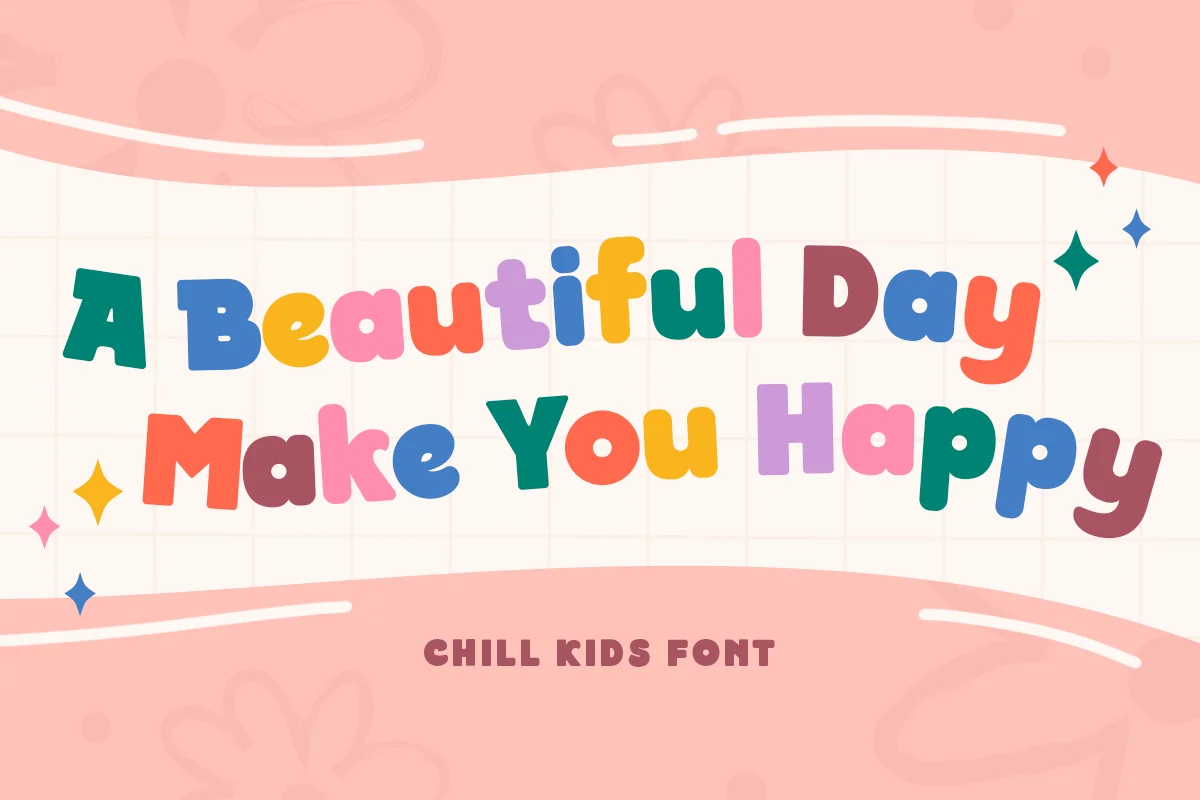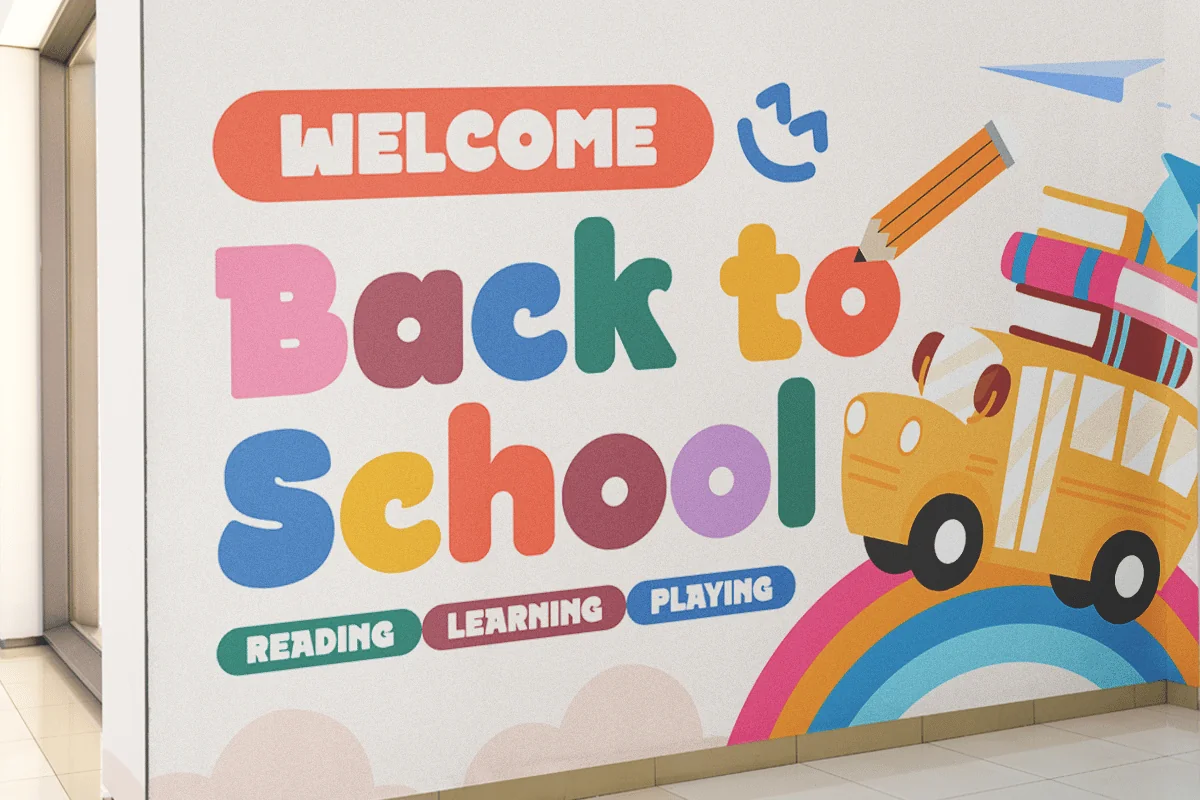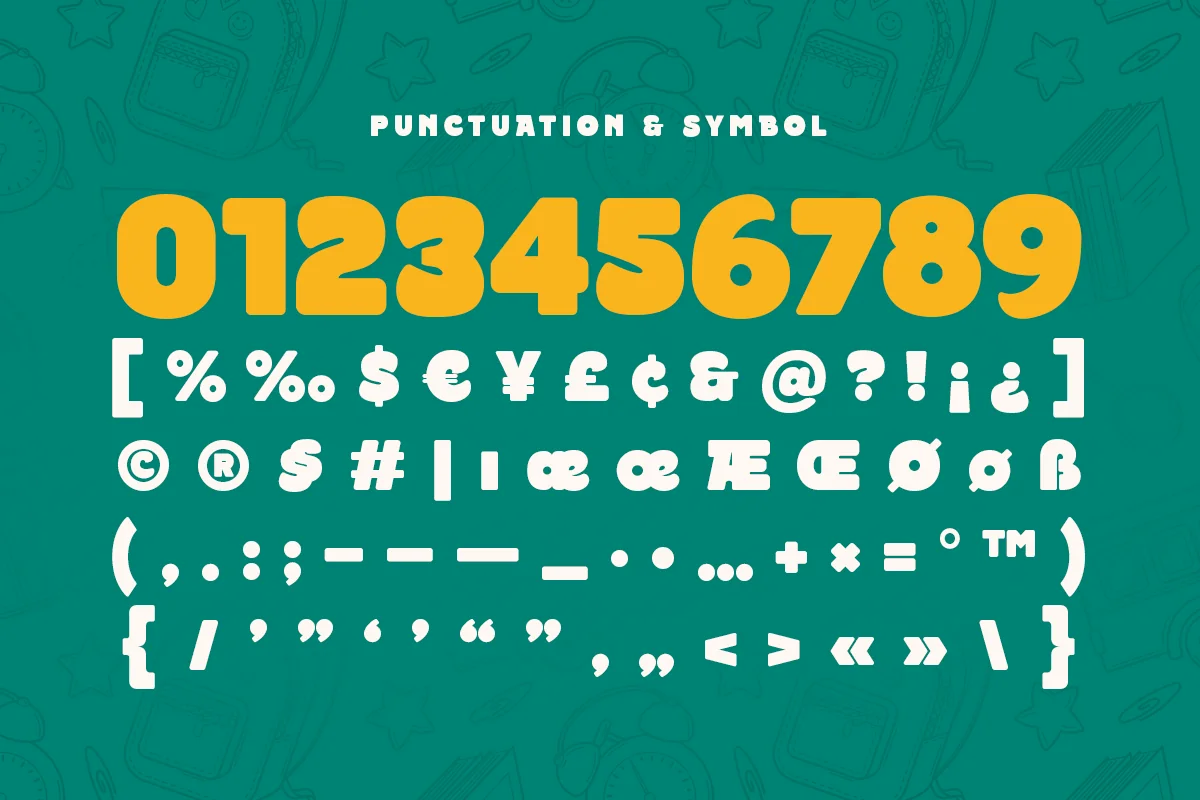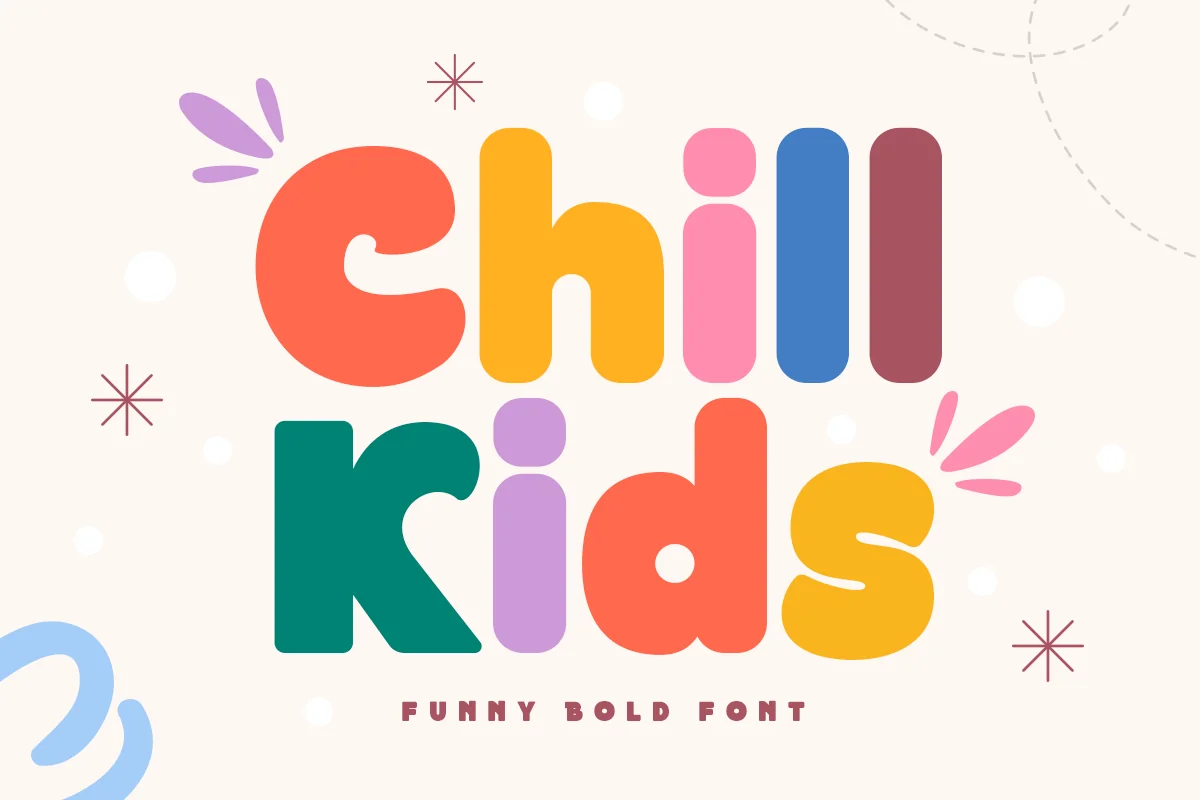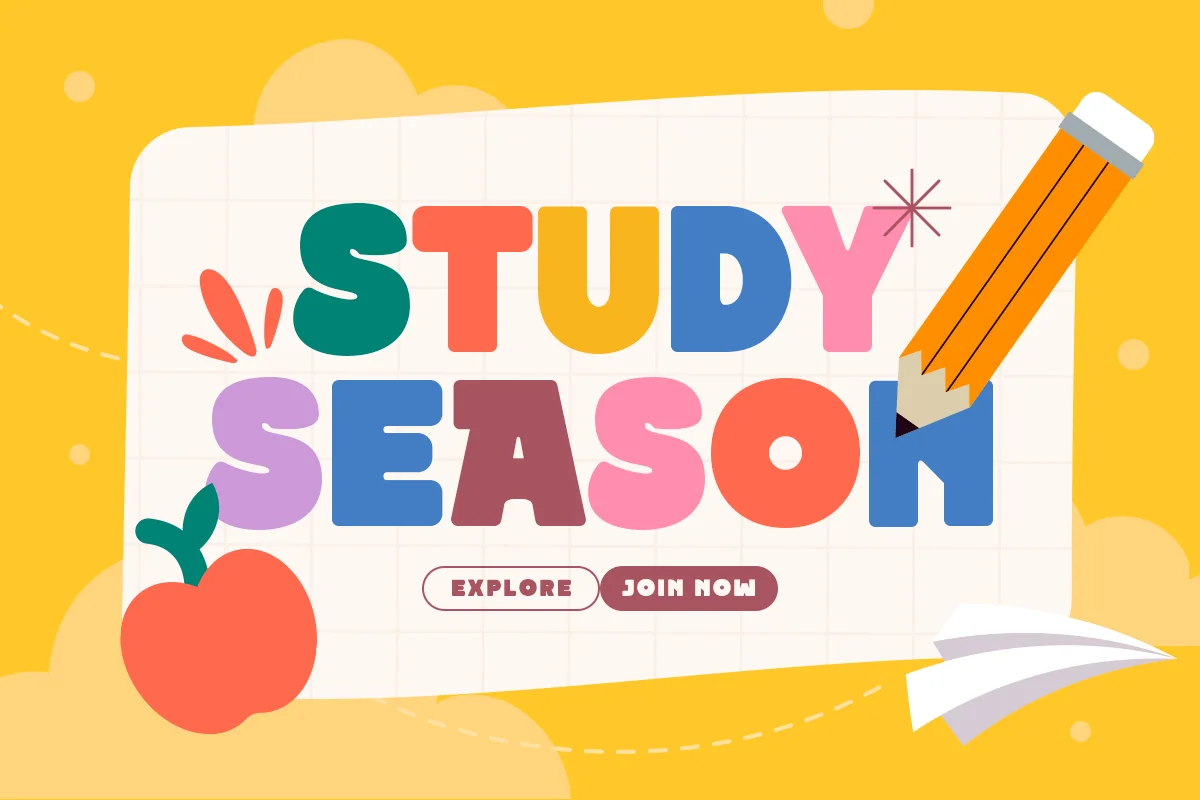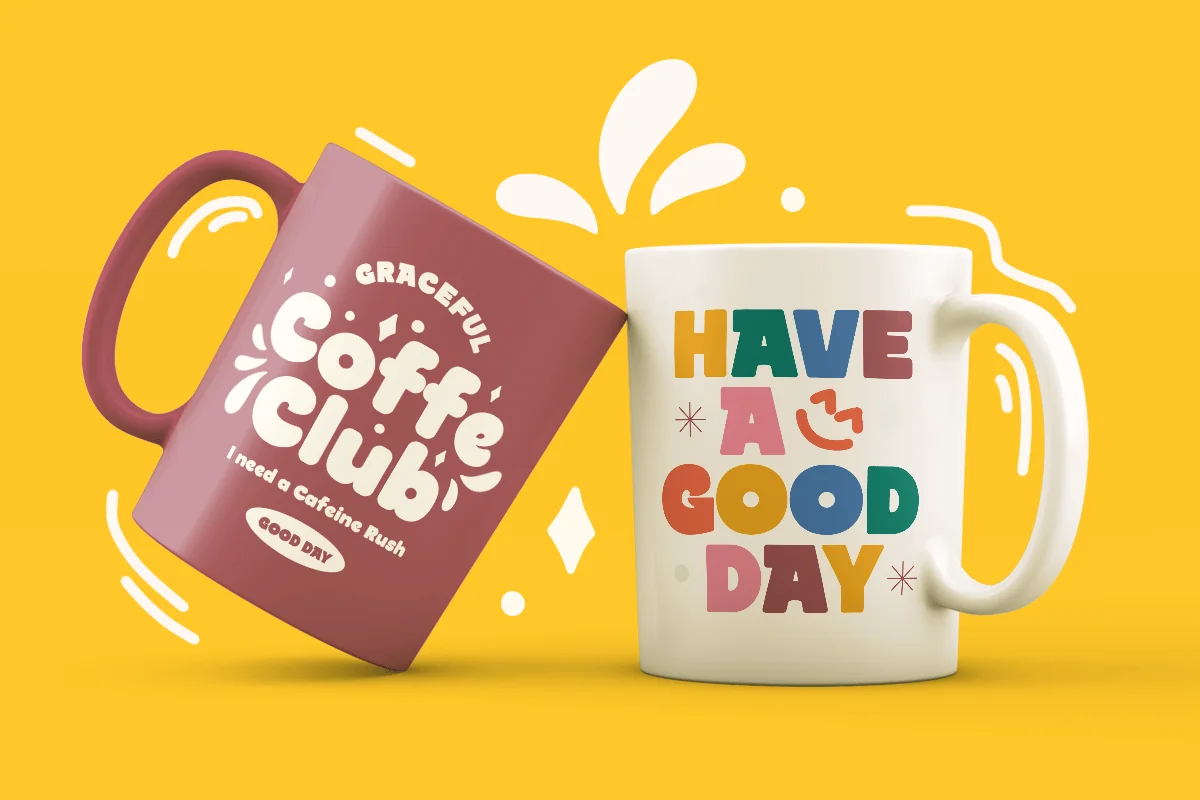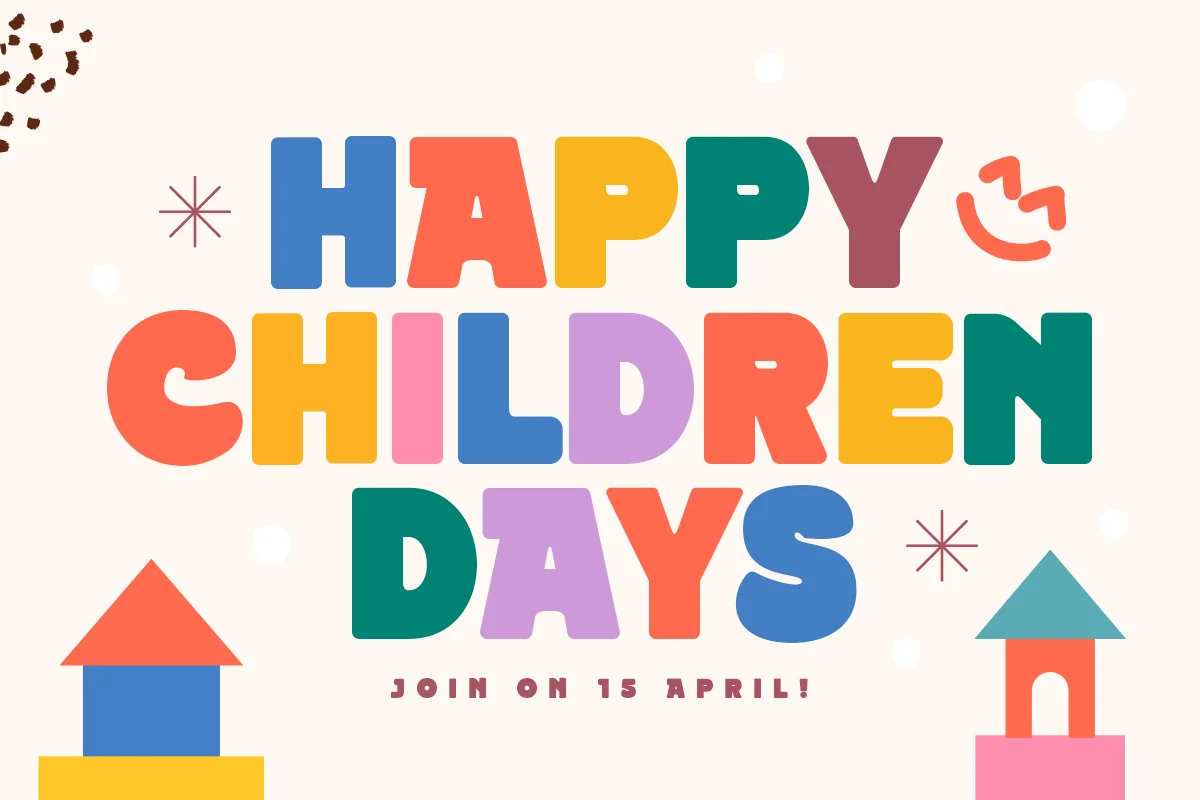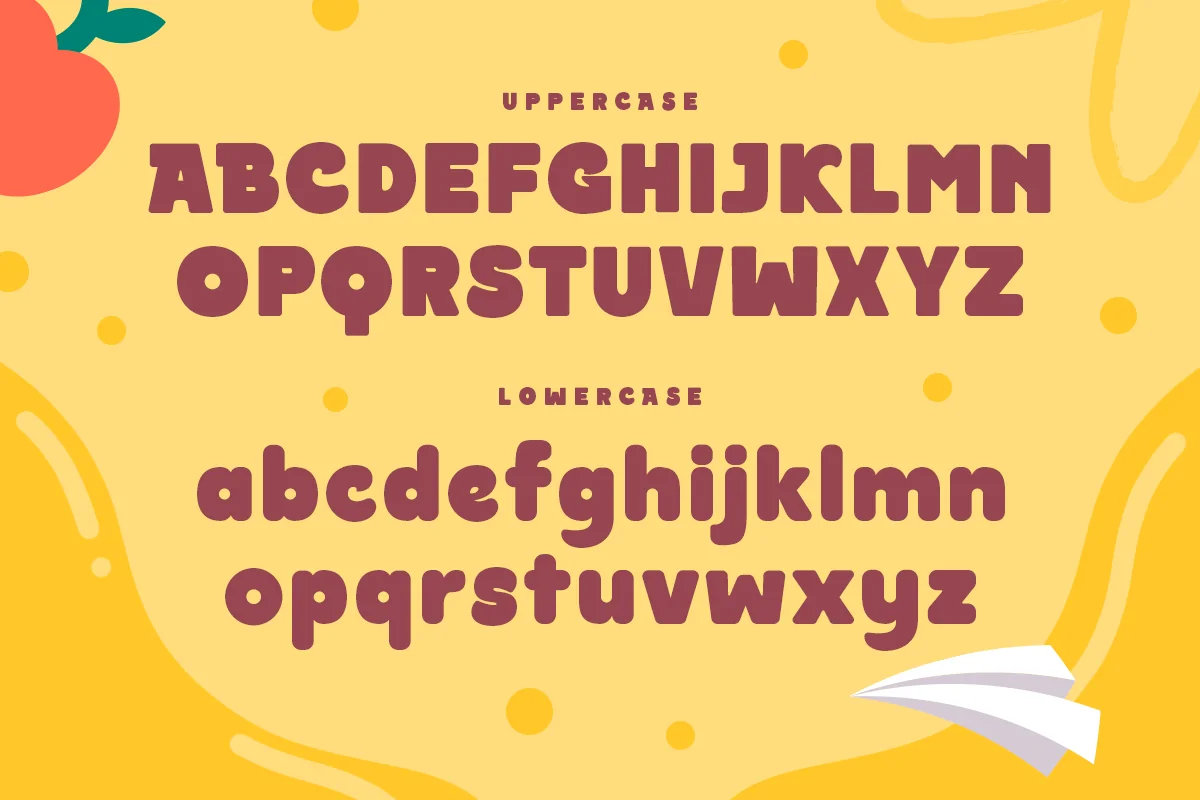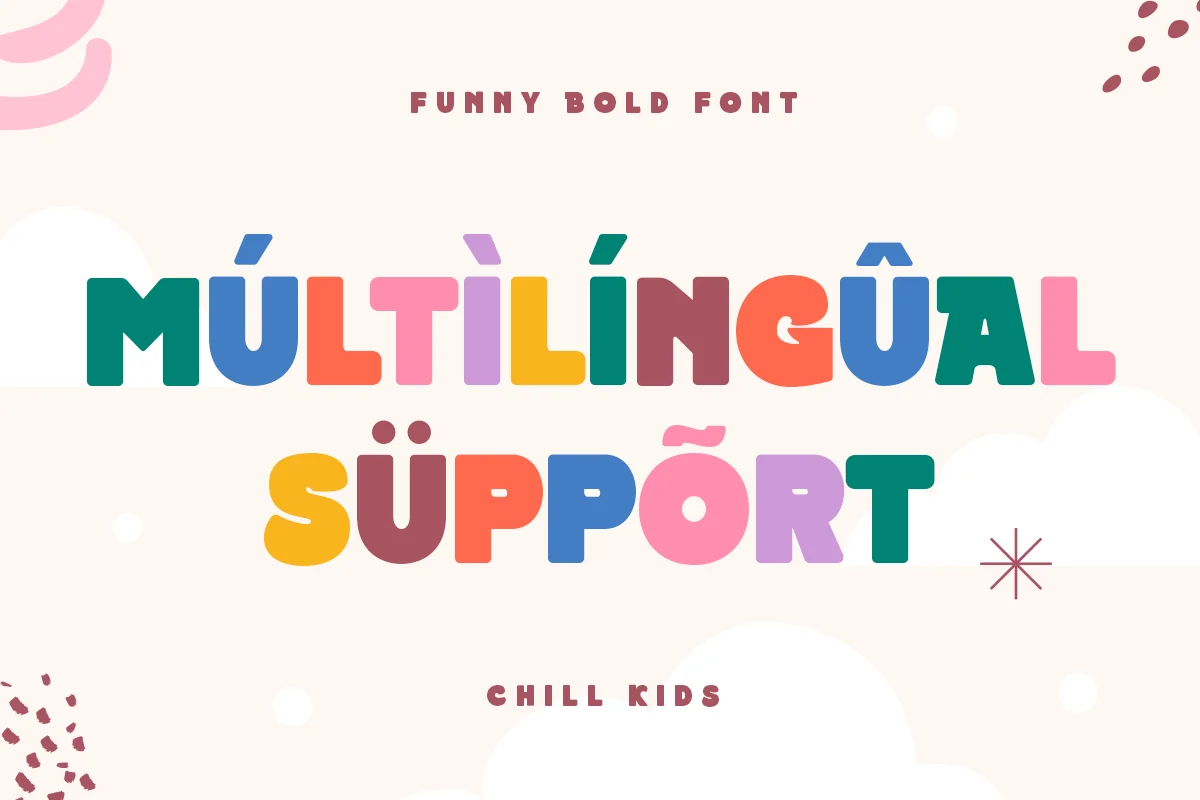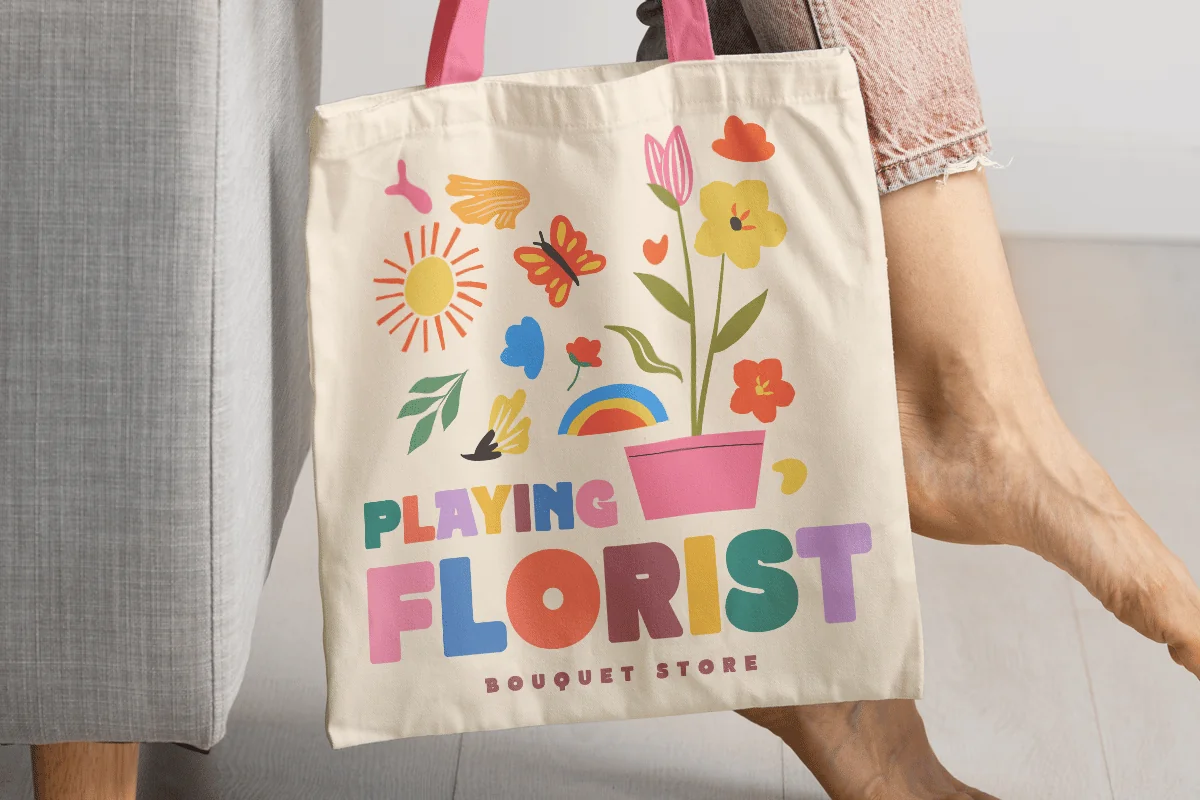
Chill Kids – Funny Bold Font
Chill Kids is a bold and funny font designed to infuse your projects with a playful spirit. Inspired by the carefree nature of childhood, Chill Kids brings a whimsical and cheerful touch to any design. Its friendly and vibrant characters are perfect for children’s books, toy packaging, birthday invitations, and any project that needs a fun and casual vibe. With its decorative style, Chill Kids stands out and captures attention, making your text not only readable but also enjoyable. The bold design ensures clarity and impact, making it versatile for various applications. Whether you’re designing for kids or just want to add a light-hearted feel to your work, Chill Kids is the perfect choice to make your designs come alive.
Bring joy to your designs with Chill Kids, the bold font that adds a fun and cheerful touch.